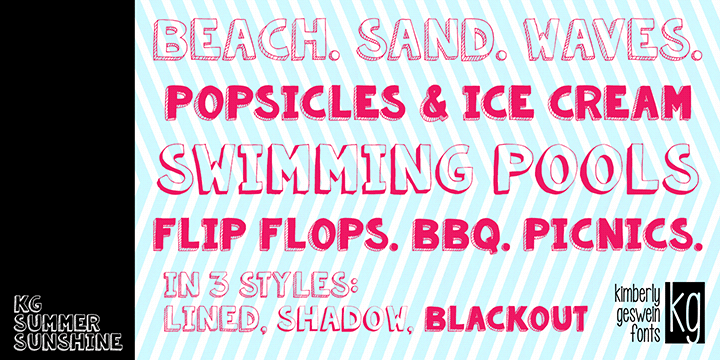
Font name: | KG Summer Sunshine |
A trio of 3 playful fonts perfect for summery, whimsical projects. For commercial licensing, please see http://kimberlygeswein.com These fonts were made in partnership with Meegan Neeb. |